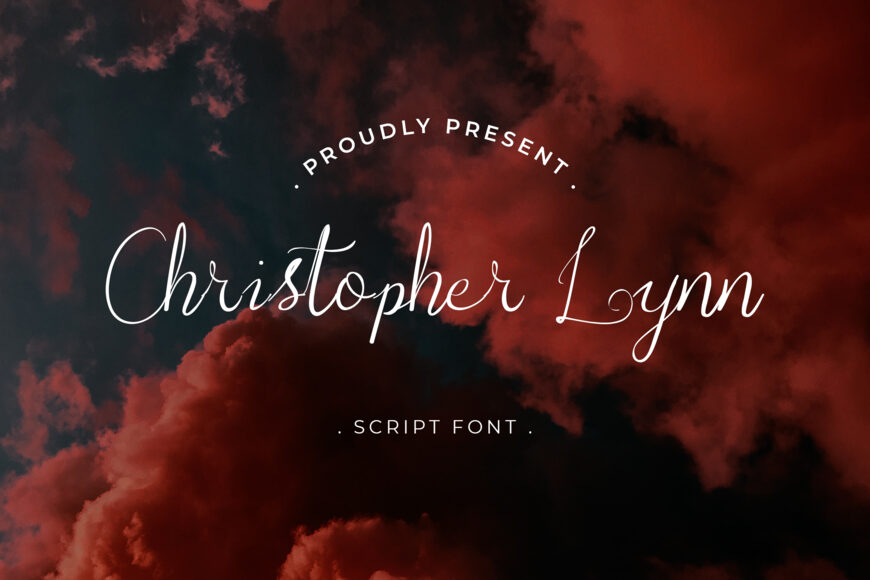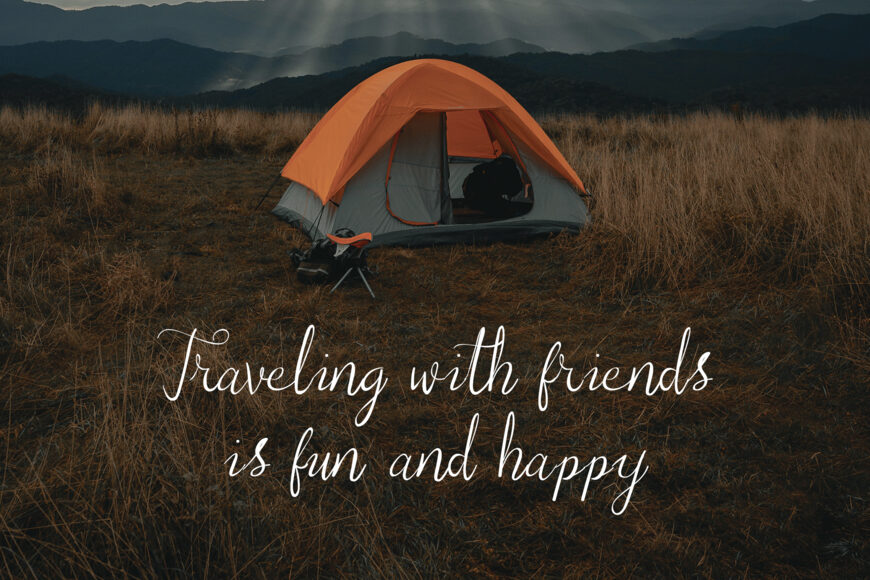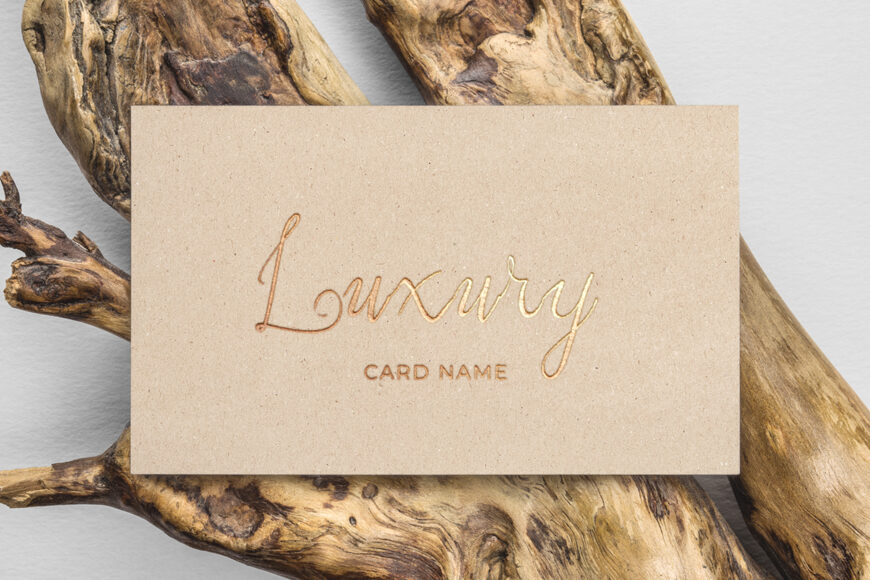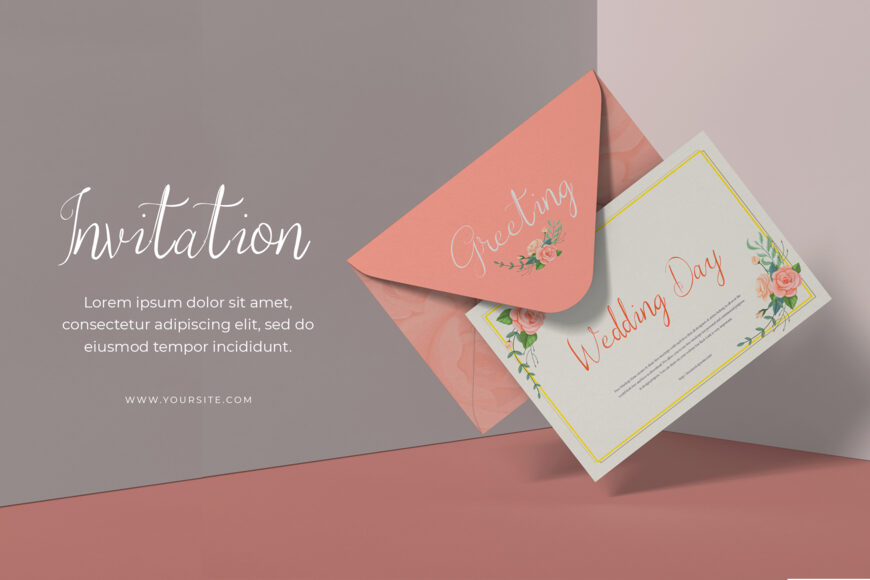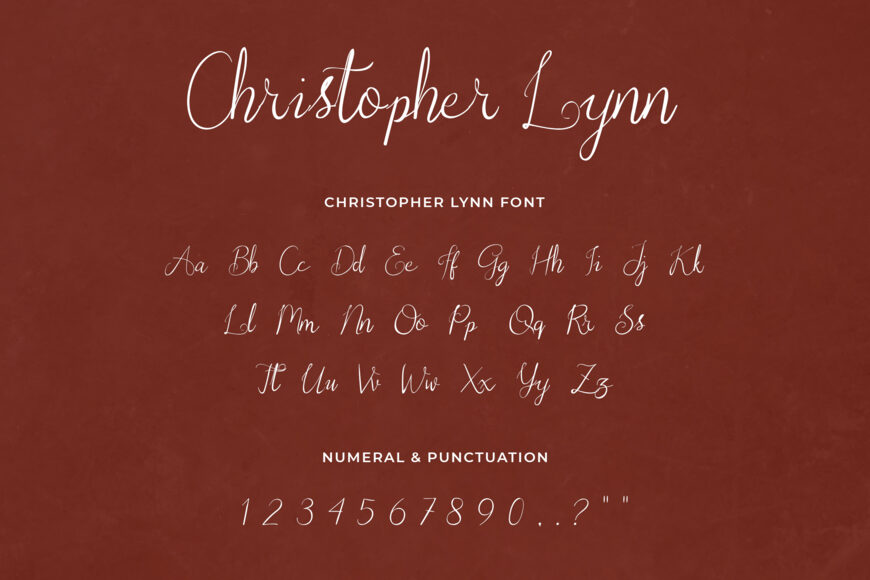
Christopher Lynn is a thin and sophisticated script font. It has a trendy vibe and it can be used for a variety of design ideas, both formal and informal. Have fun with this beautiful font and explore its endless variations.